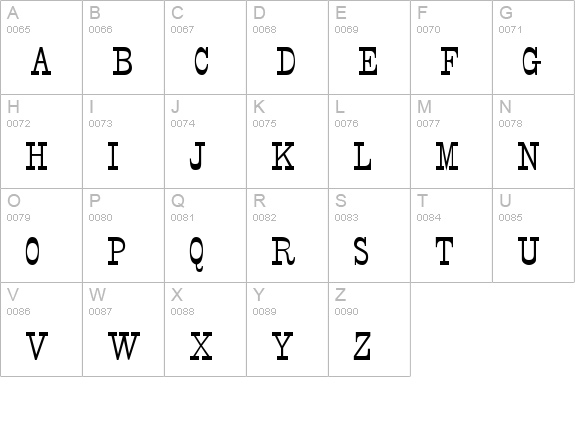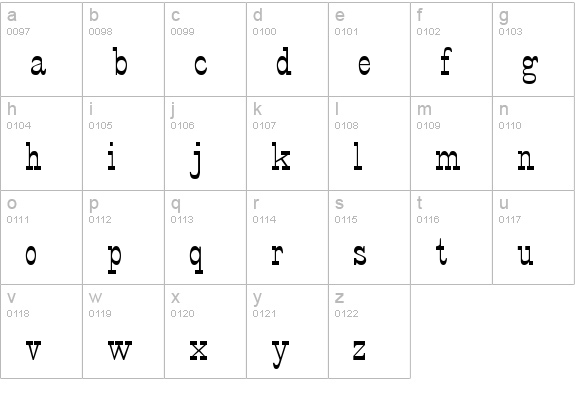
StageCoach Regular Font Details
StageCoach Regular is the standard, neutral variant in the StageCoach typeface family \xE2\x80\x94 well suited to general body text, paragraphs, and standard typographic work.
StageCoach Regular is a versatile and timeless font that effortlessly combines classic elegance with modern simplicity. This font is perfect for a wide range of design projects, from branding and logo designs to invitations and editorial layouts. Its clean lines and balanced proportions make it highly legible, ensuring that your message is communicated effectively. What sets StageCoach Regular apart is its remarkable versatility. It adapts effortlessly to both formal and informal designs, making it suitable for a variety of industries and purposes. Whether you're creating a sophisticated wedding invitation, a contemporary fashion brand, or an eye-catching advertisement, this font will effortlessly elevate your design to new heights. One of the most appealing aspects of StageCoach Regular is that it is freely available for download at FontsMarket.com. This means that you can easily access and use this font without any restrictions or limitations. Whether you're a professional designer or a hobbyist, you can enjoy the benefits of this stunning font without breaking the bank. With its timeless appeal and wide range of applications, StageCoach Regular is a must-have font for any design enthusiast. Its versatility, legibility, and the fact that it is freely available to download at FontsMarket.com make it an invaluable addition to your font library. Take your designs to the next level with StageCoach Regular and experience the difference it makes in your creative endeavors.